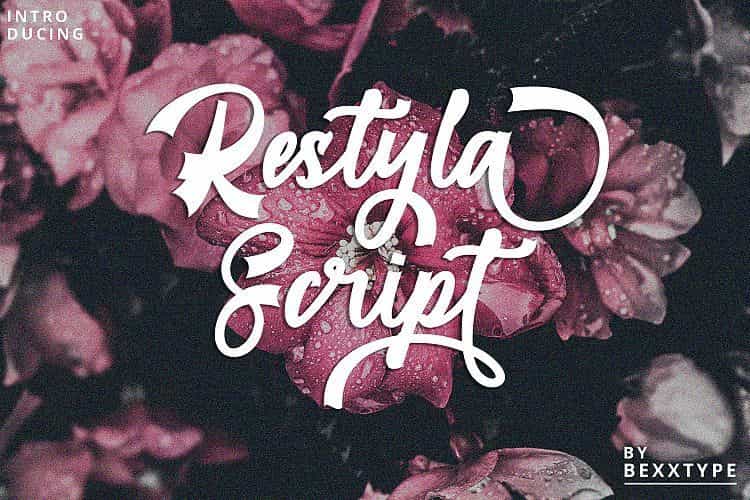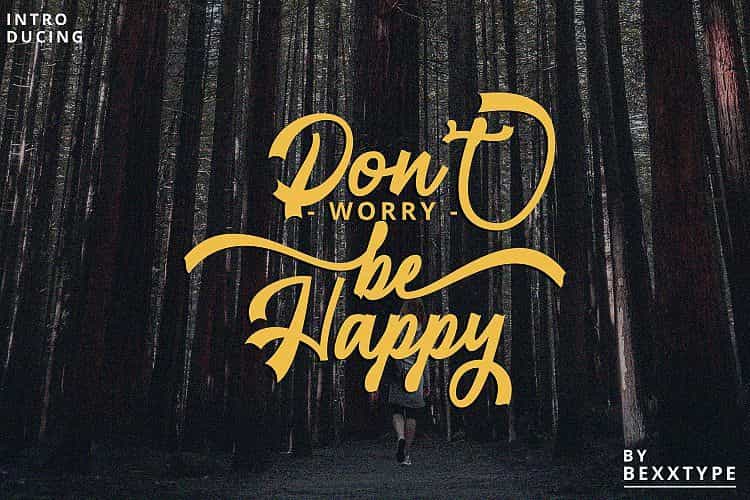
Introducing Restyla Font. It is a new, fresh and modern script with a handmade calligraphy style, decorative characters and a dancing baseline!Thus, this font is perfect for invitations, like greeting cards, branding materials, business cards, quotes, posters and more!